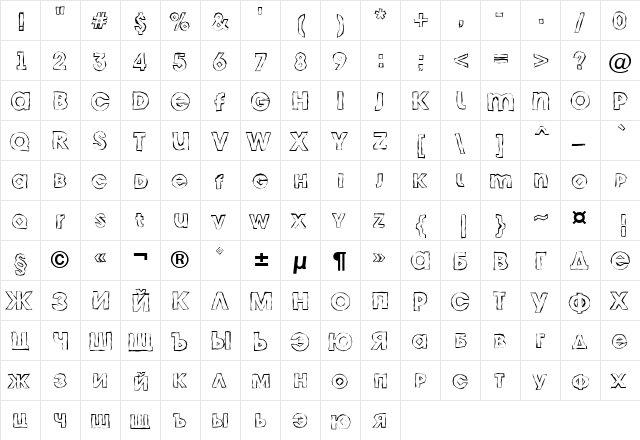
a_AvanteCpsLCBrkHll Regular
Design Context for a_AvanteCpsLCBrkHll Typeface
a_AvanteCpsLCBrkHll is a composed and adaptable typeface that performs quietly and consistently across a wide range of design contexts.